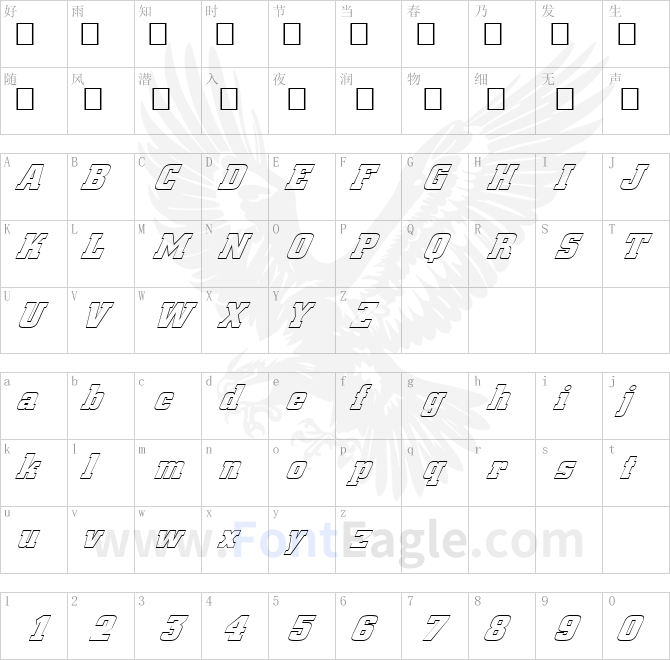
- Font name:FZ BASIC 53 HOLLOW ITALIC
FZ-BASIC-53-HOLLOW-ITALIC is a great font, widely used in graphic design, single-page menu design, poster design and other fields, and is deeply loved by designers.FZ-BASIC-53-HOLLOW-ITALIC download.